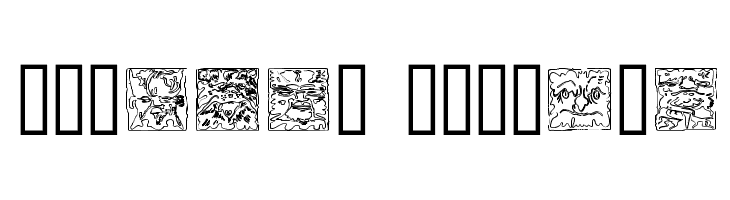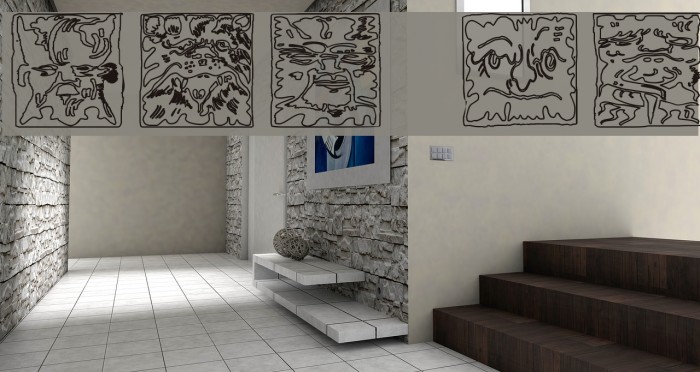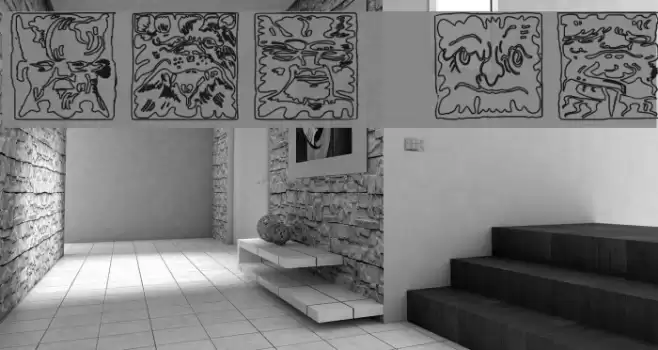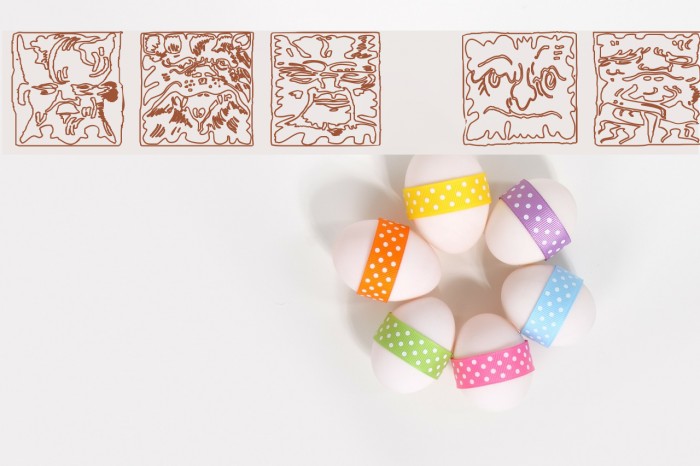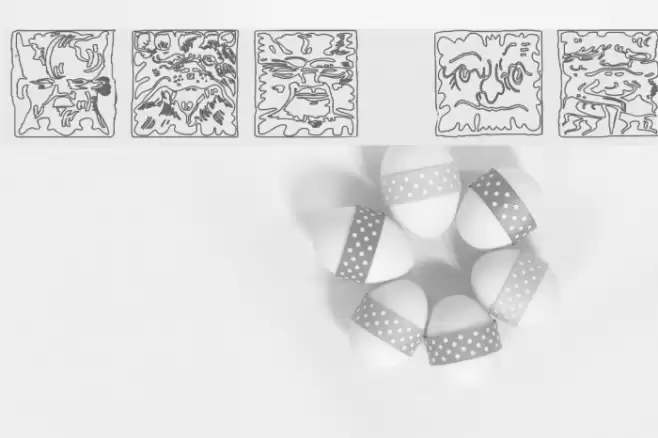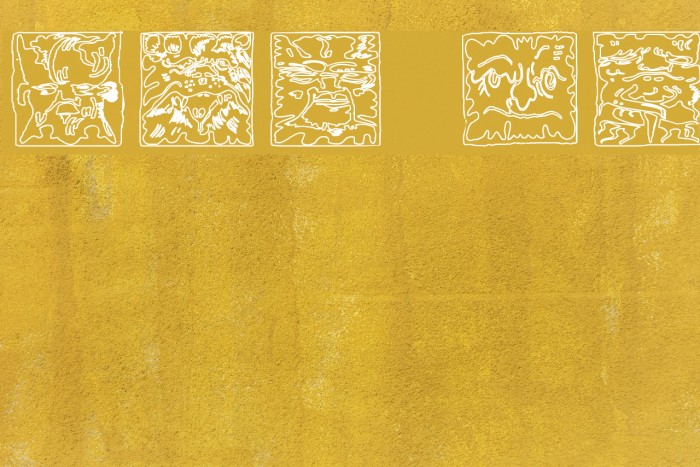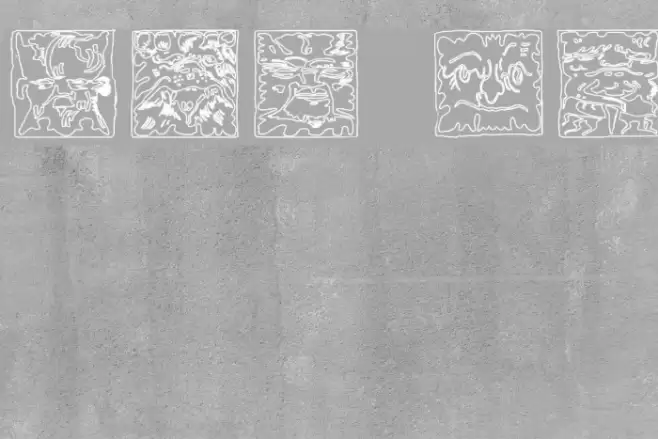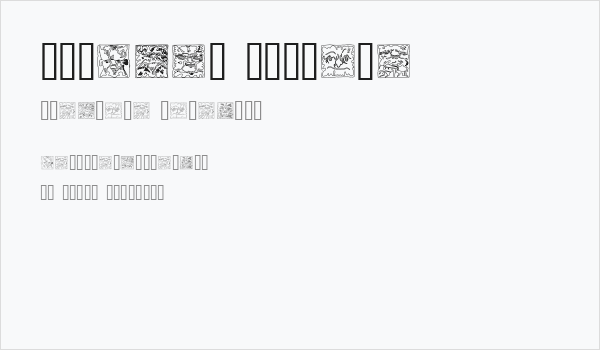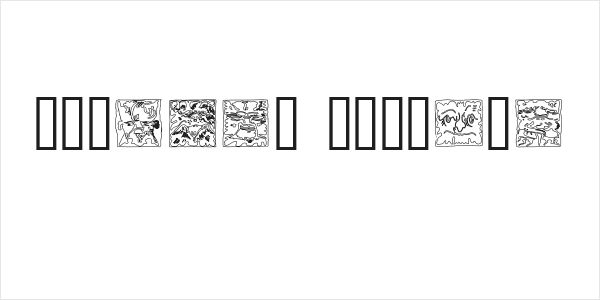
Mythago Outline Font
Mythago Outline Description
This font features a highly decorative and intricate design, with each character enclosed within a rectangular border. The letters are filled with complex, mythical imagery, creating a sense of mystery and fantasy. The detailed artwork within each letter makes it more of a visual art piece than a traditional typeface. The font is primarily designed for display purposes, where the artistic elements can be appreciated. Its unique style is reminiscent of ancient mythological themes, making it suitable for projects that require a touch of the fantastical or historical.
| Proposed Projects | Ideal for fantasy book covers, themed posters, or any project requiring a mythical or historical aesthetic. |